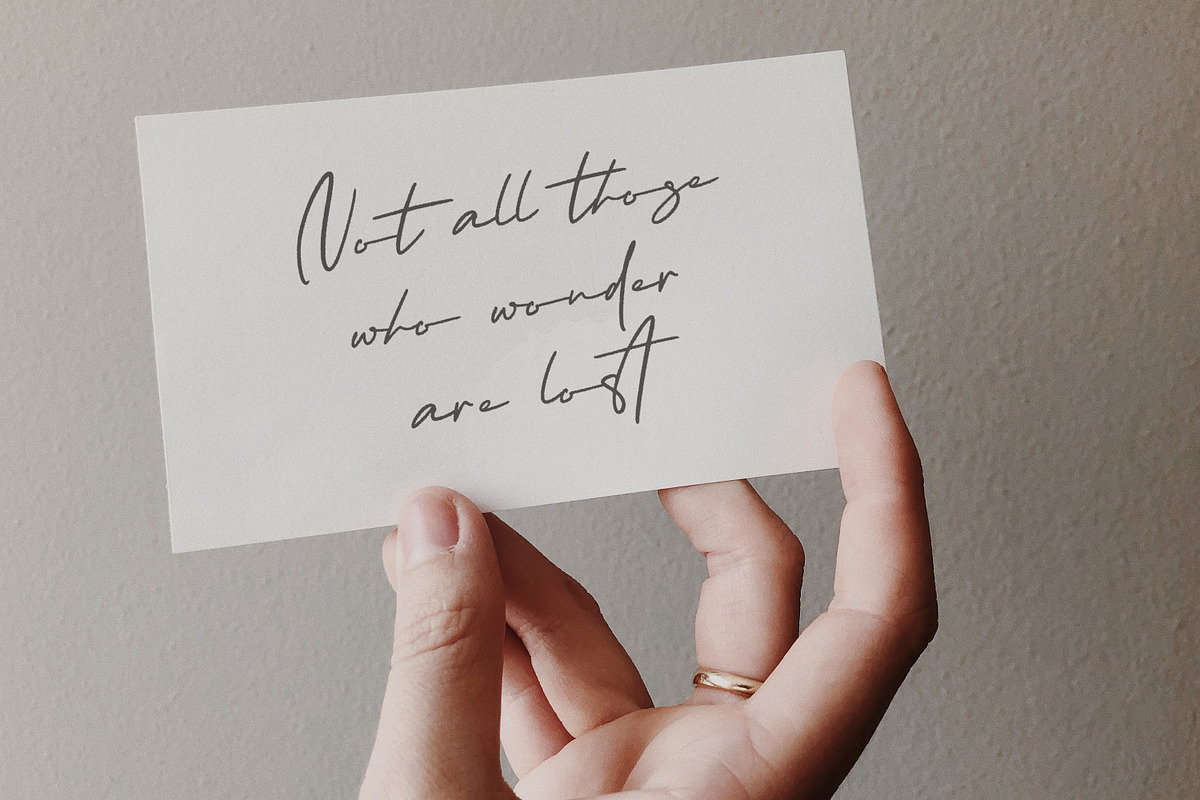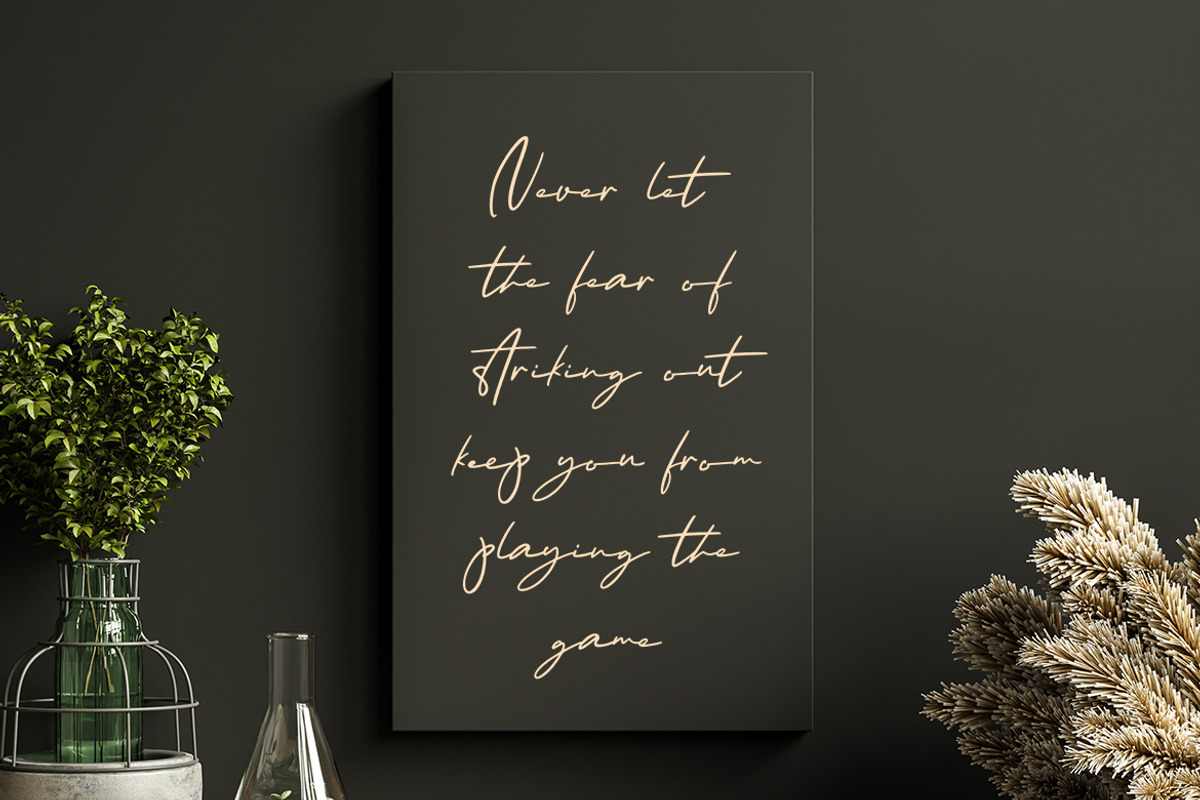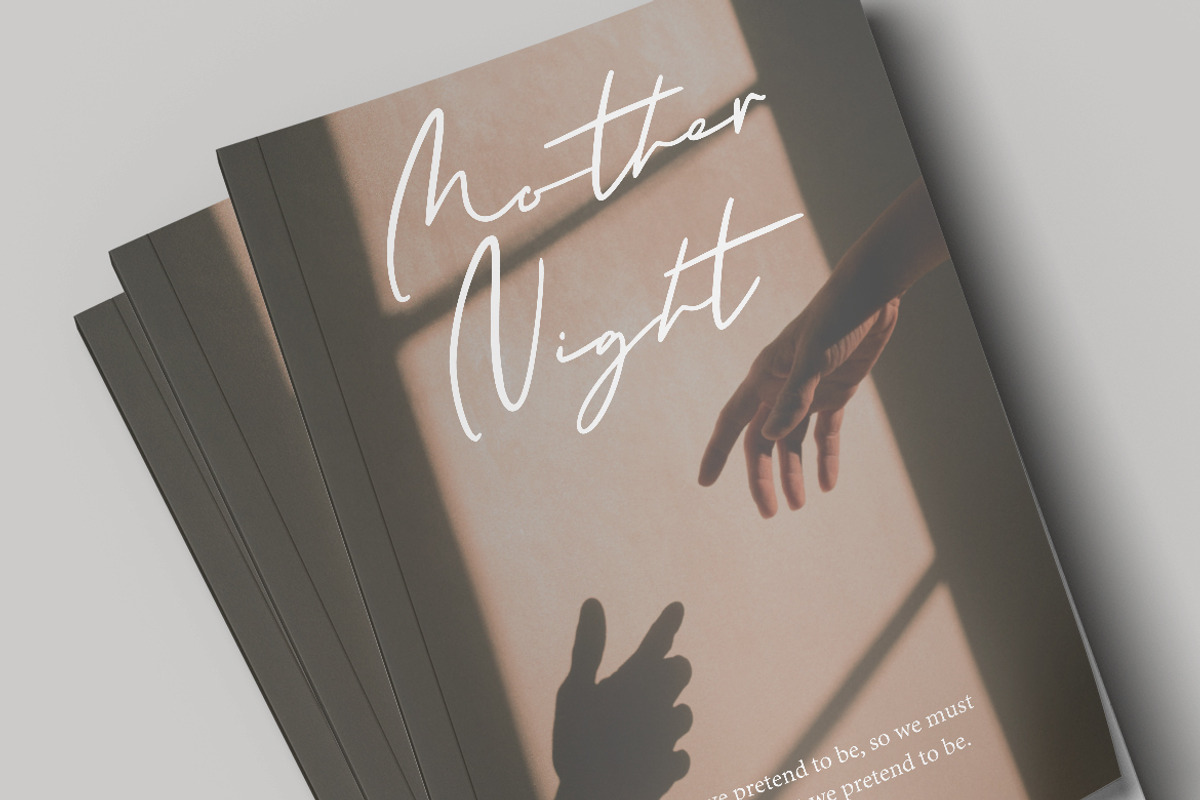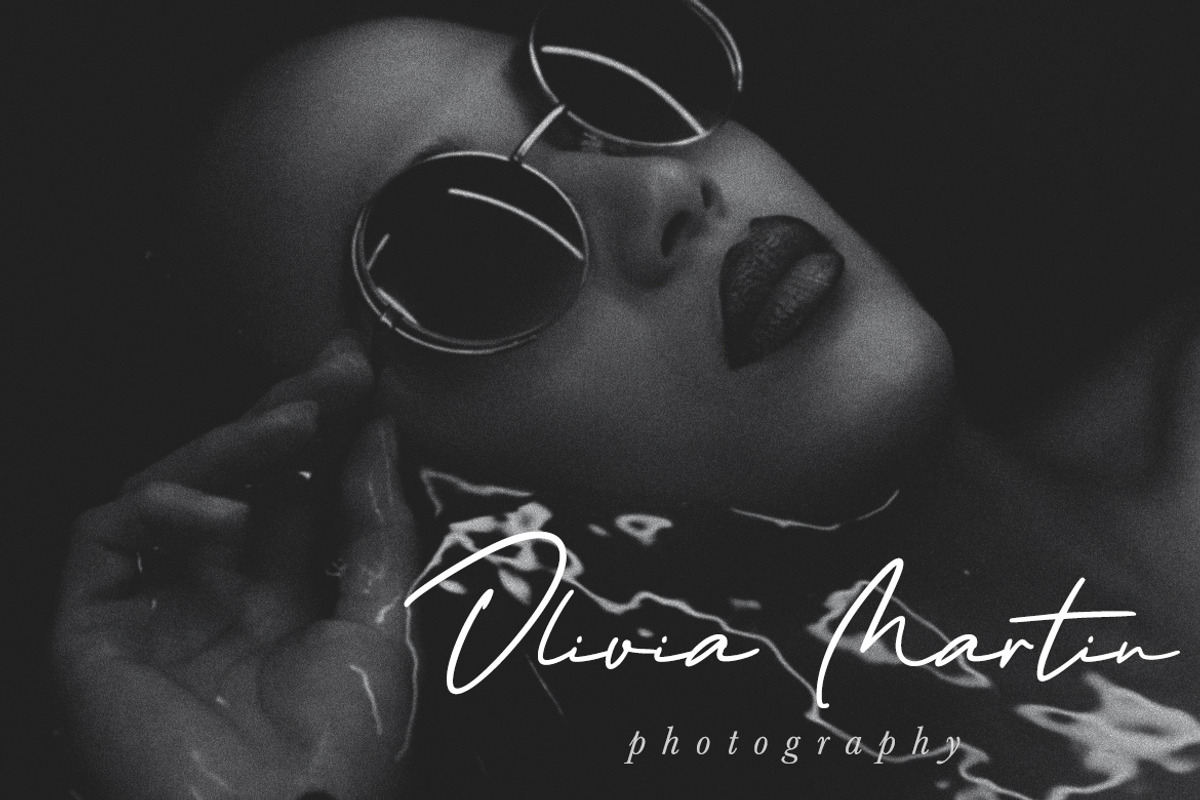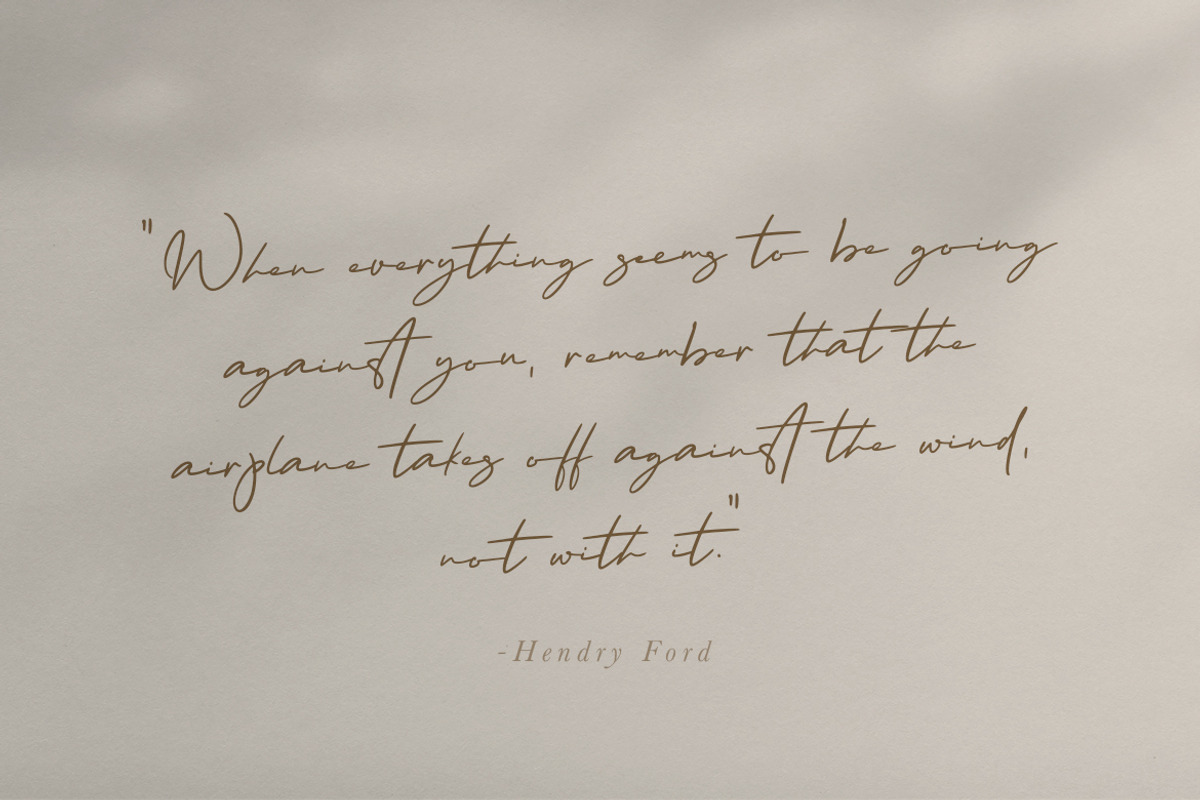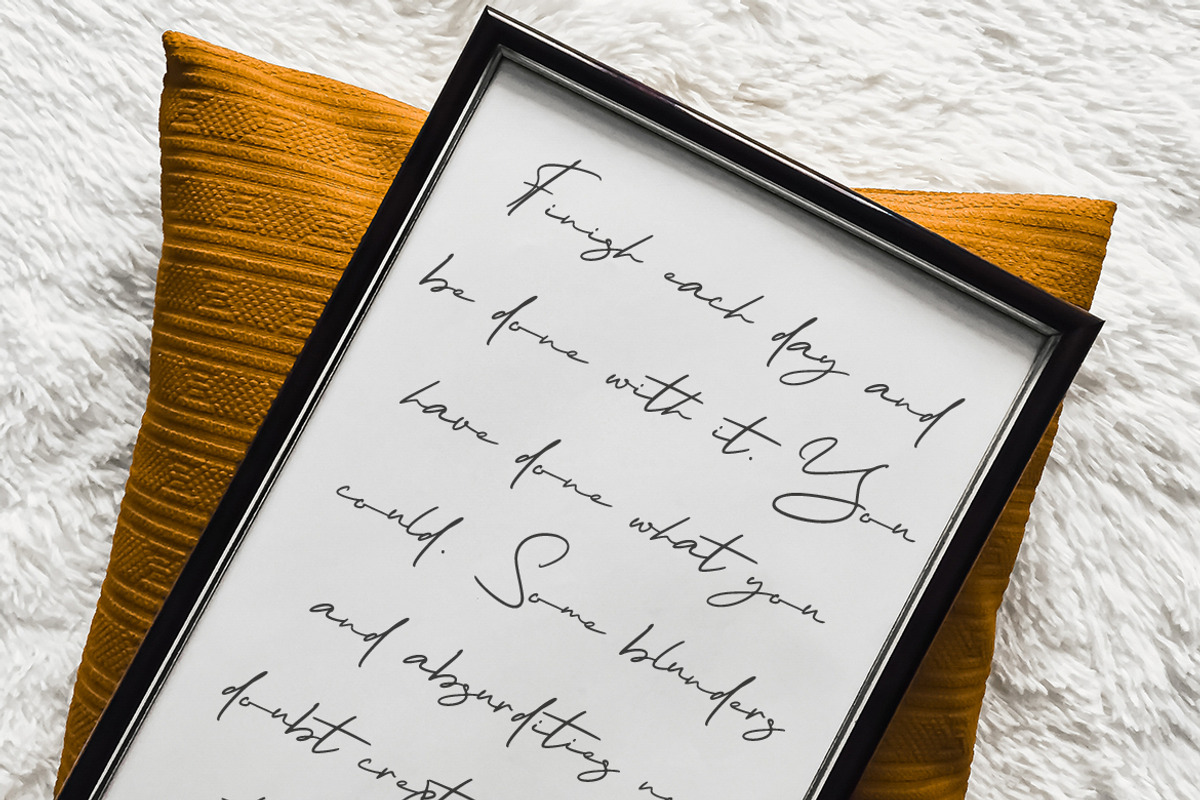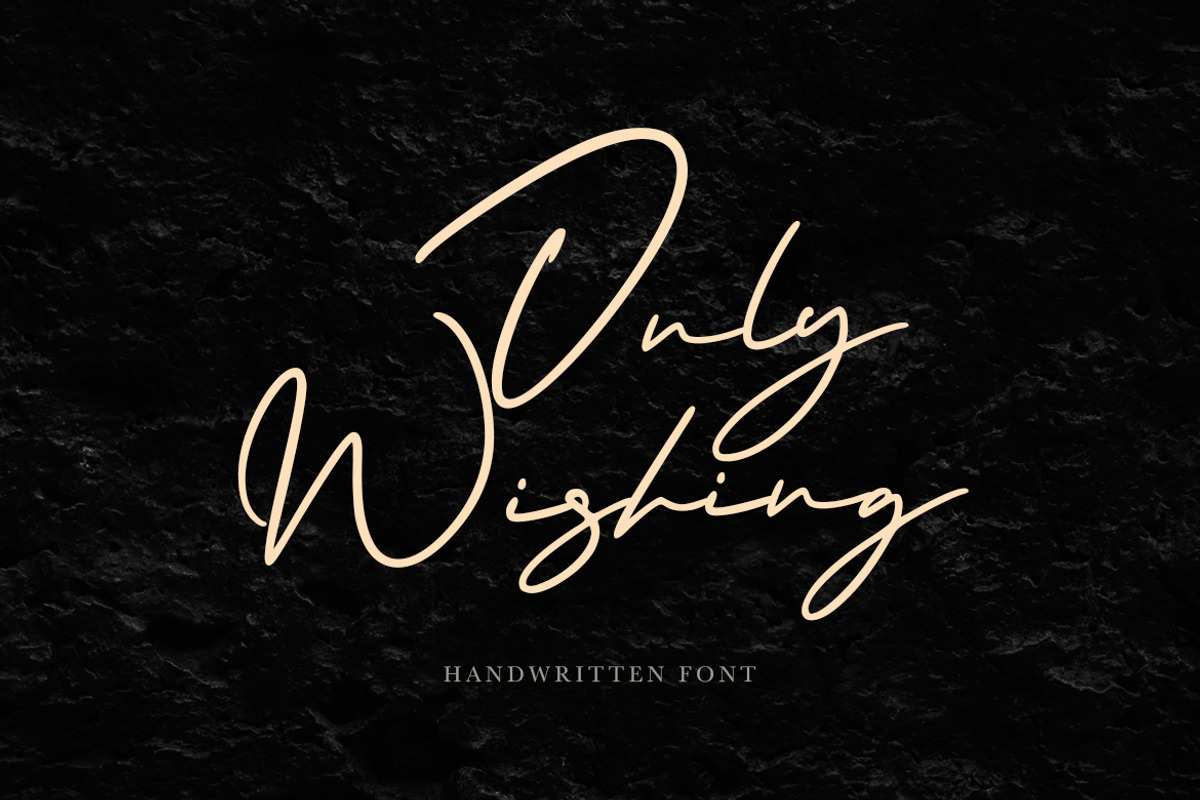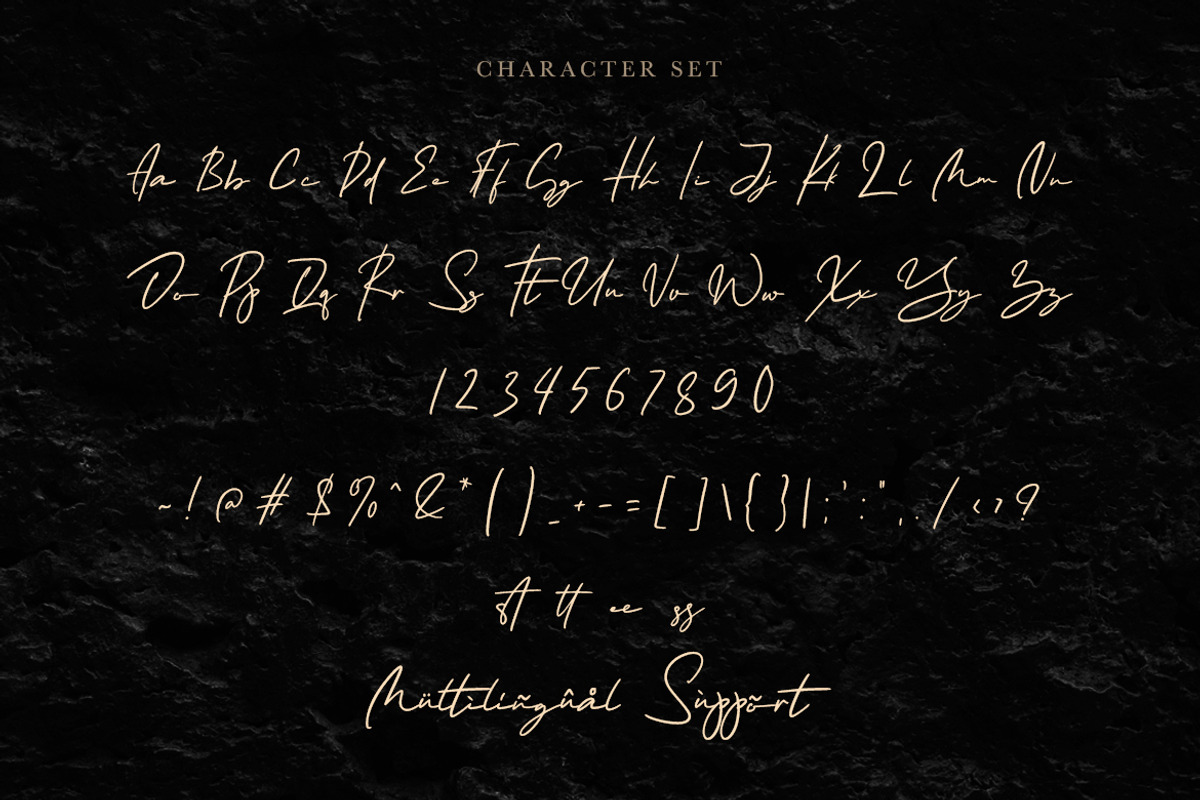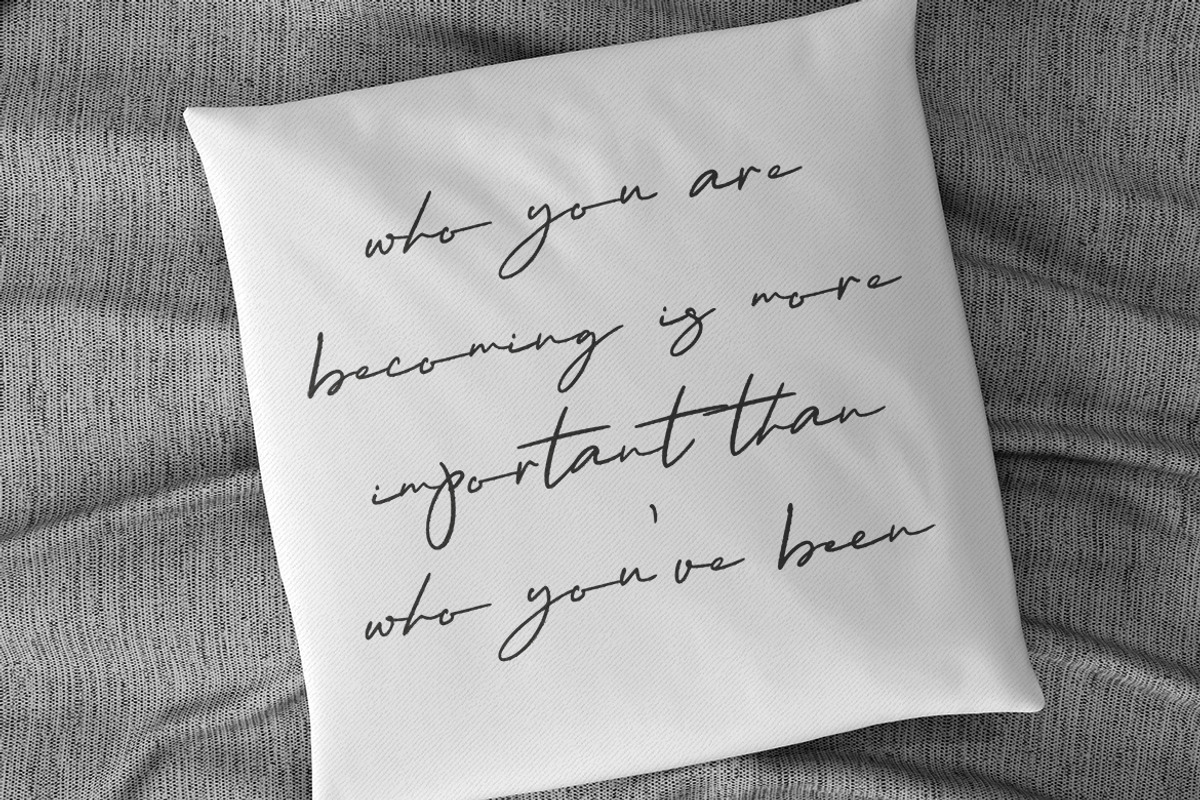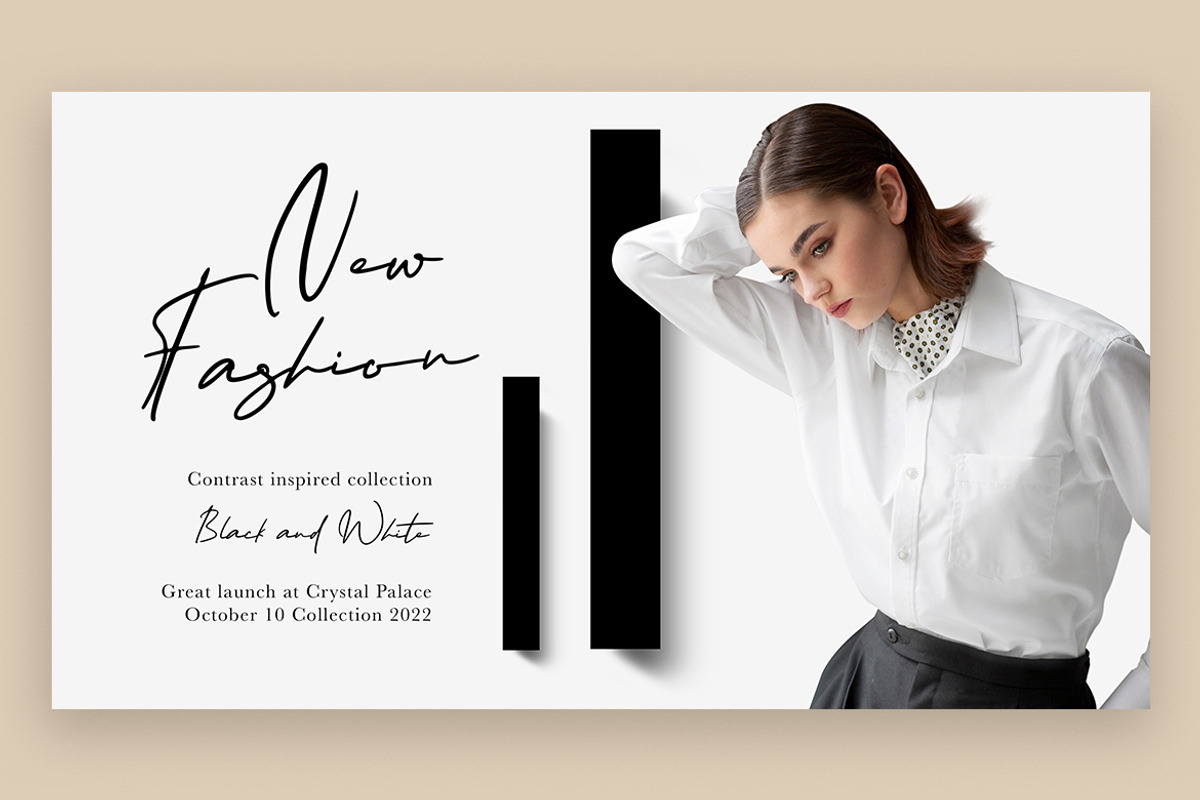
Only Wishing - a Handwritten Font
Only Wishing is perfect for many different projects such as logos & branding, invitation, stationery, wedding designs, social media posts, advertisements, product packaging, product designs, label, photography, watermark, special events, or anything.
- ligature